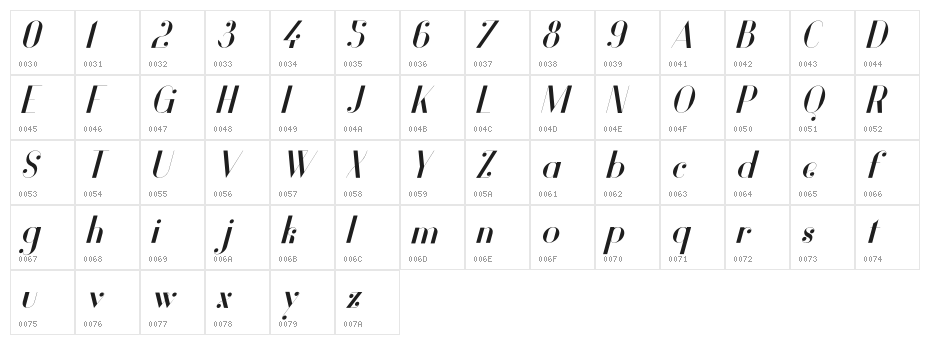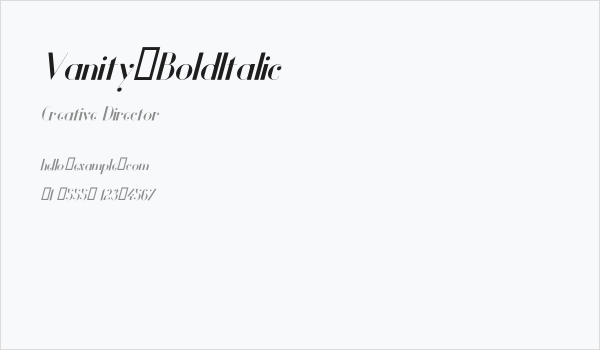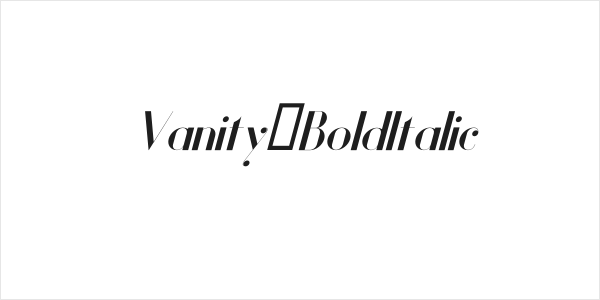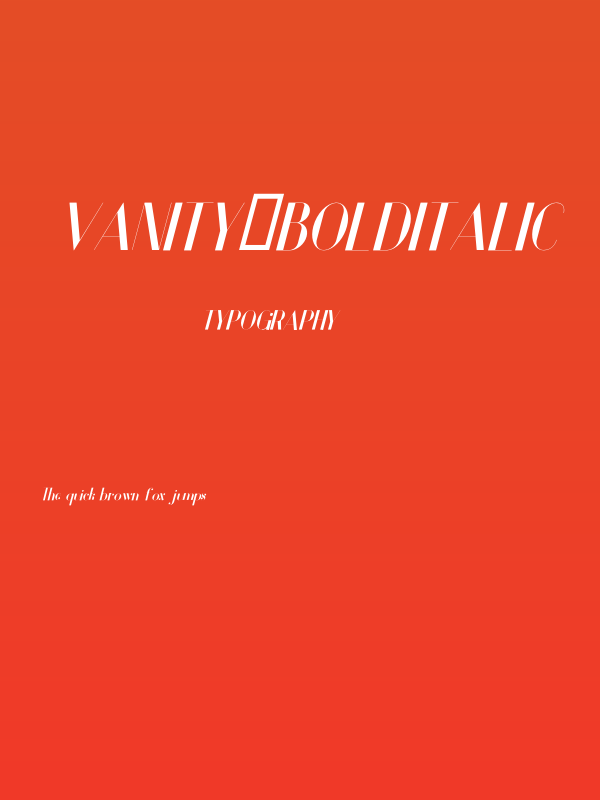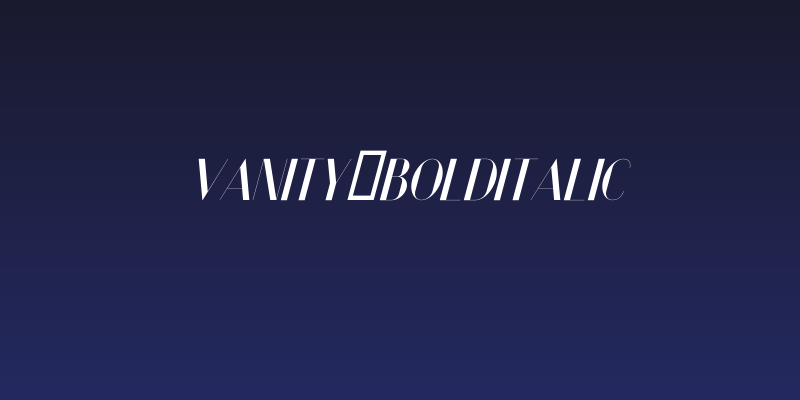
Vanity-BoldItalic Font
Vanity-BoldItalic Description
This font features a bold and italicized style with a modern flair. The characters are elegantly slanted, giving a sense of movement and sophistication. The uppercase letters are tall and commanding, while the lowercase letters maintain a consistent flow with rounded edges. The numerals are distinct and stylish, complementing the overall aesthetic. Special characters are designed with the same attention to detail, ensuring a cohesive look across all elements. The font's high contrast between thick and thin strokes adds to its dramatic appearance, making it suitable for eye-catching designs.
| Overall Style | Modern, Elegant |
| Proposed Projects | Ideal for luxury branding, fashion magazines, elegant invitations, and high-end product packaging. |